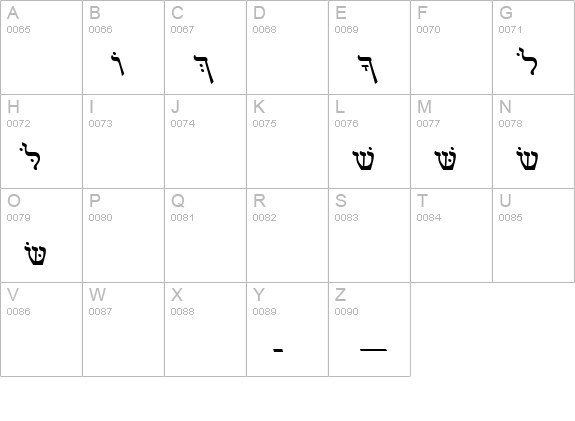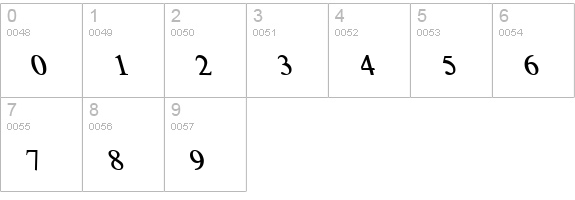
FrankRuehl Backslanted Italic Font Details
FrankRuehl Backslanted Italic is a distinctive, italic variant in the FrankRuehl typeface family \xE2\x80\x94 well suited to design and typography projects.
The FrankRuehl Backslanted Italic font is a stylish and elegant typeface that adds a touch of sophistication to any design project. Its unique backslanted italic style conveys a sense of movement and flair, making it perfect for adding a dynamic and eye-catching element to your creations. This font exudes a sense of modernity and creativity, making it ideal for a wide range of applications, from branding and advertising to editorial design and digital content. Its sleek and sleek design makes it a versatile choice for both print and digital media. Best of all, the FrankRuehl Backslanted Italic font is available for free download at FontsMarket.com. Whether you're a professional designer looking to enhance your projects or a hobbyist seeking to add a touch of elegance to your creations, this font is sure to impress with its unique style and versatility. Download it today and elevate your designs with the captivating charm of FrankRuehl Backslanted Italic font.